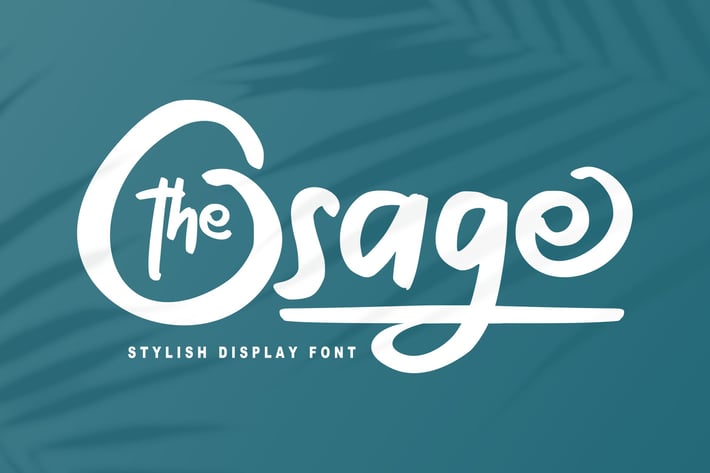
The Osage | Stylish Display Font
The Osage | Stylish Display Font with a calligraphy style, So beautiful on invitation like greeting cards, branding materials, business cards, quotes, posters, and more!